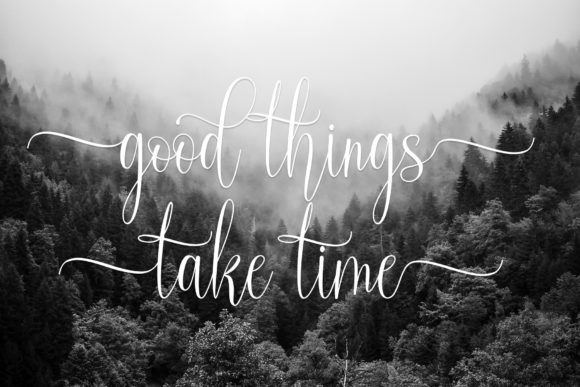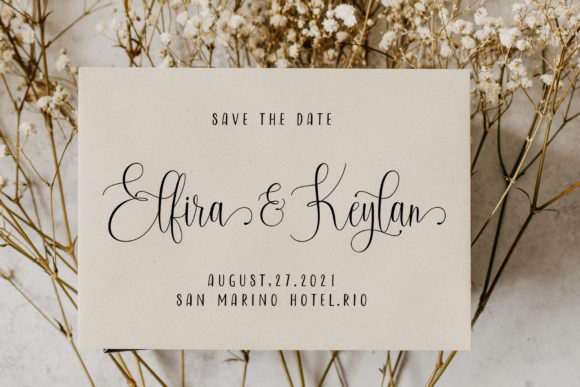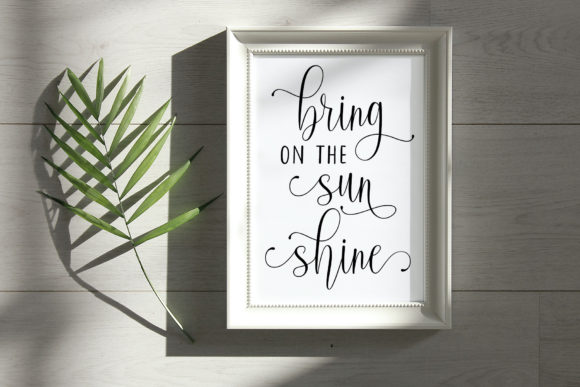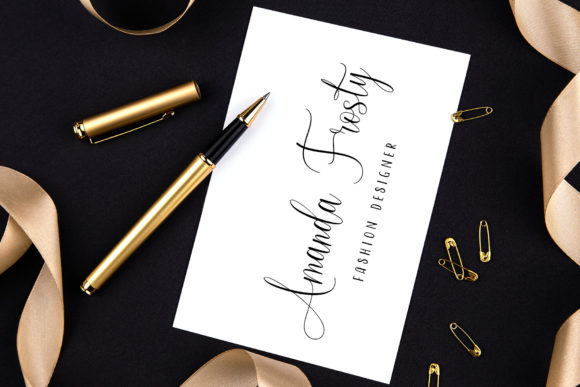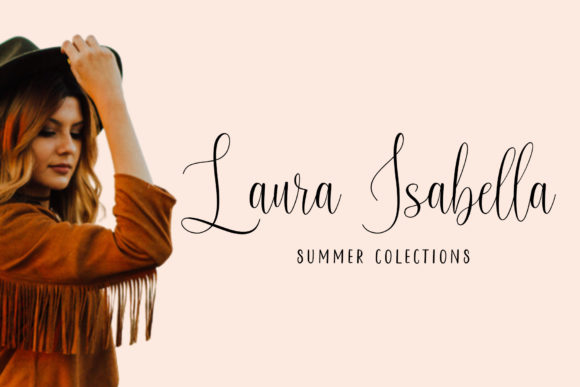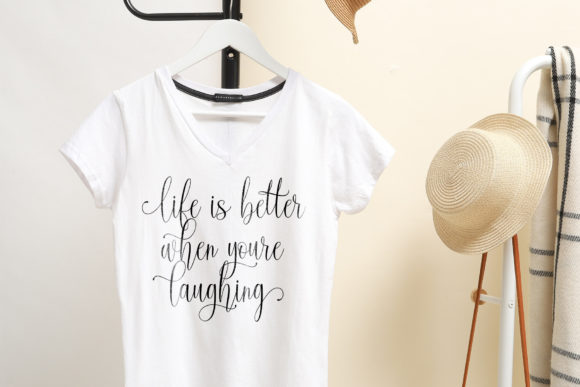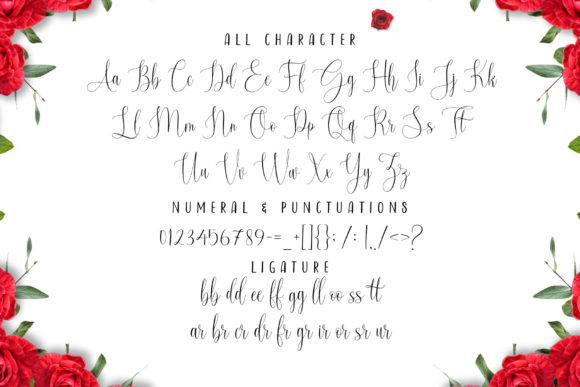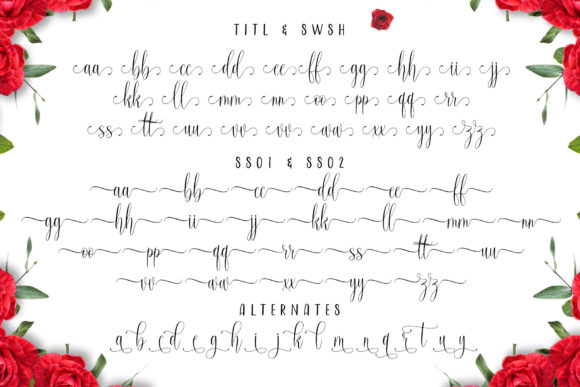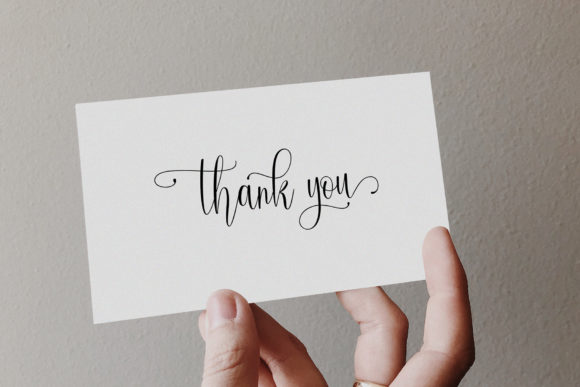
Motherlove Font
About Motherlove Font
MotherloveĀ is a chic, refined duo font (sans serif and script), that emanates sophistication and elegance. Its stylish alternates and ligatures make this font the perfect match for any project.